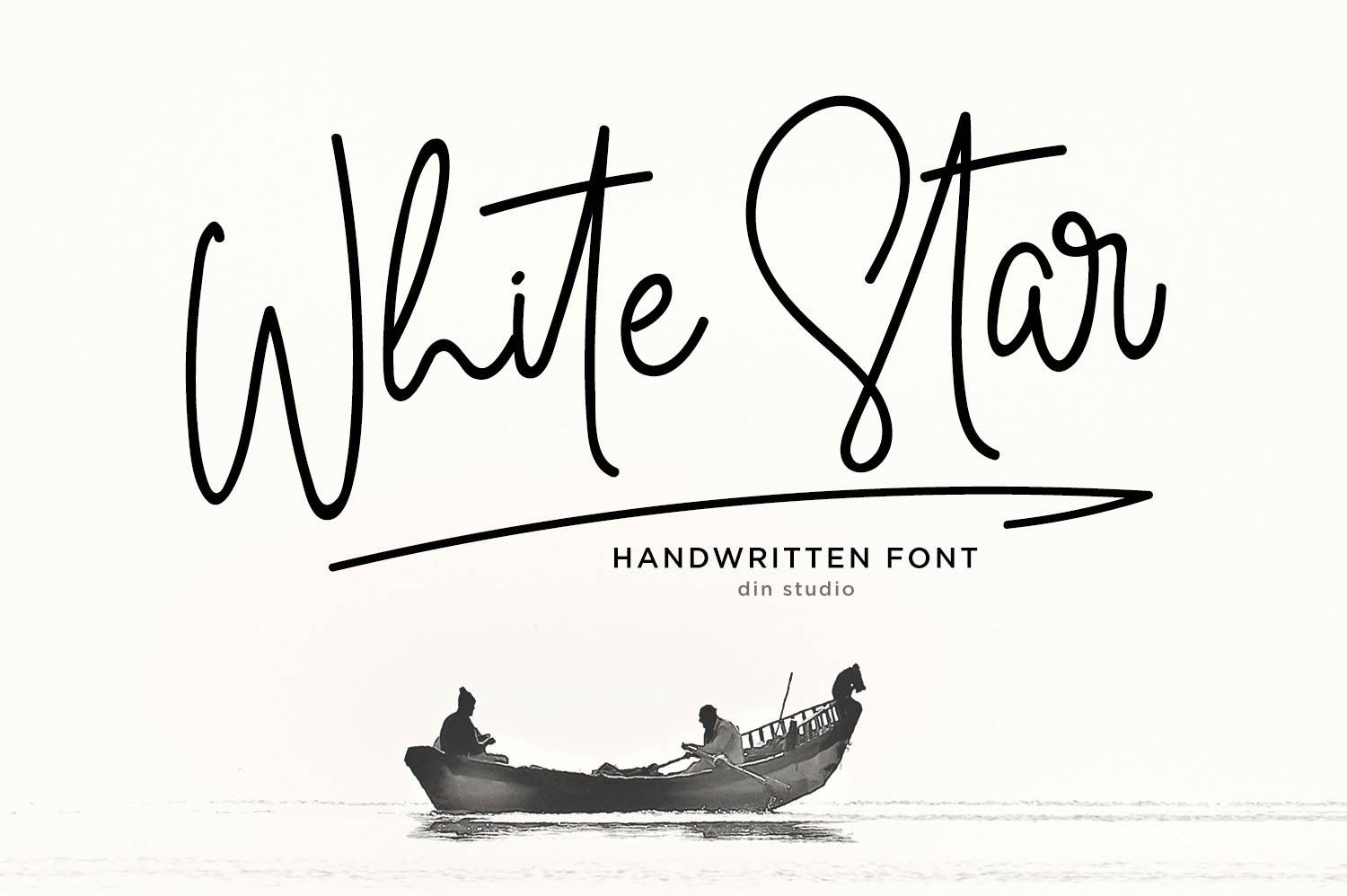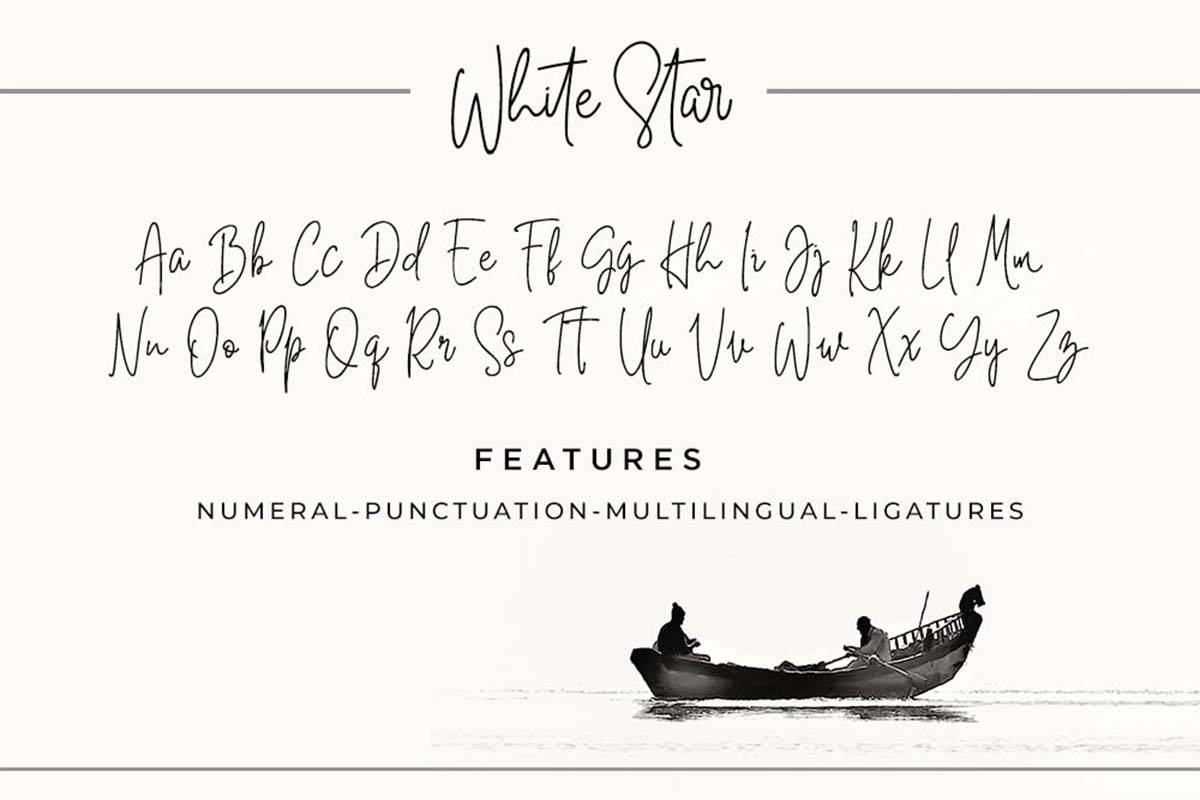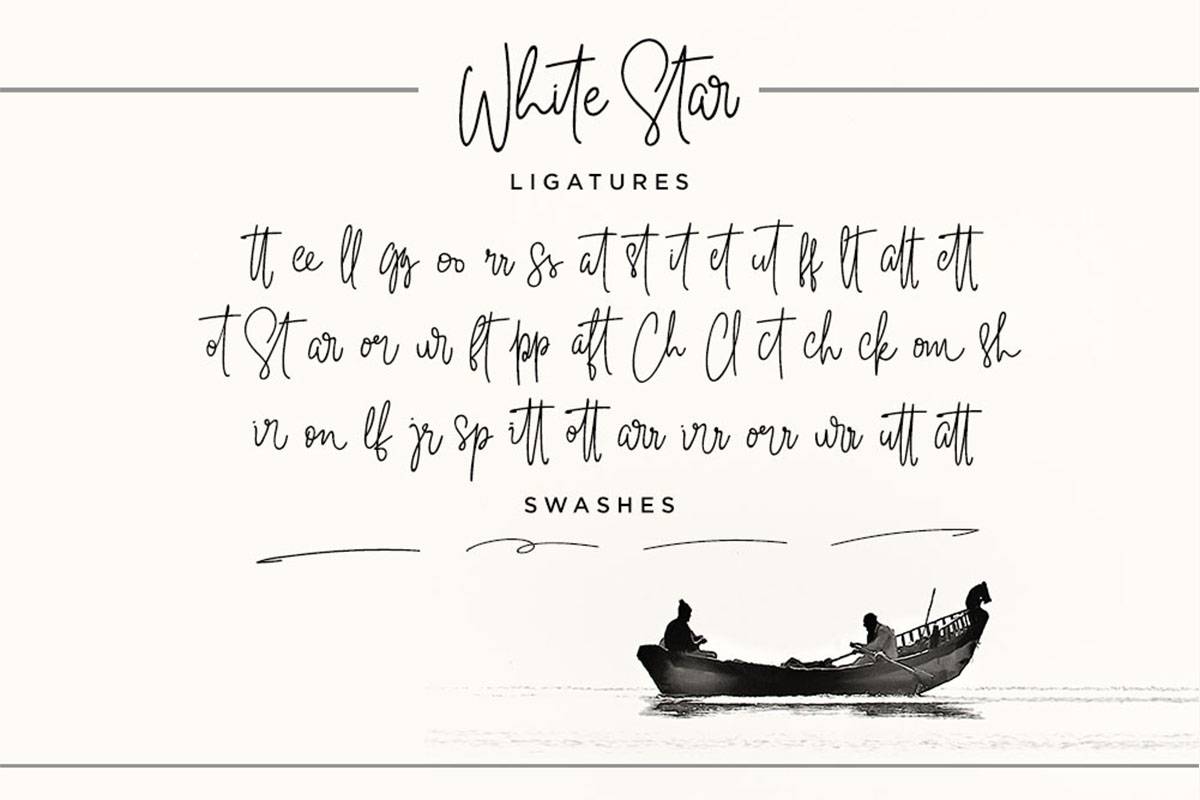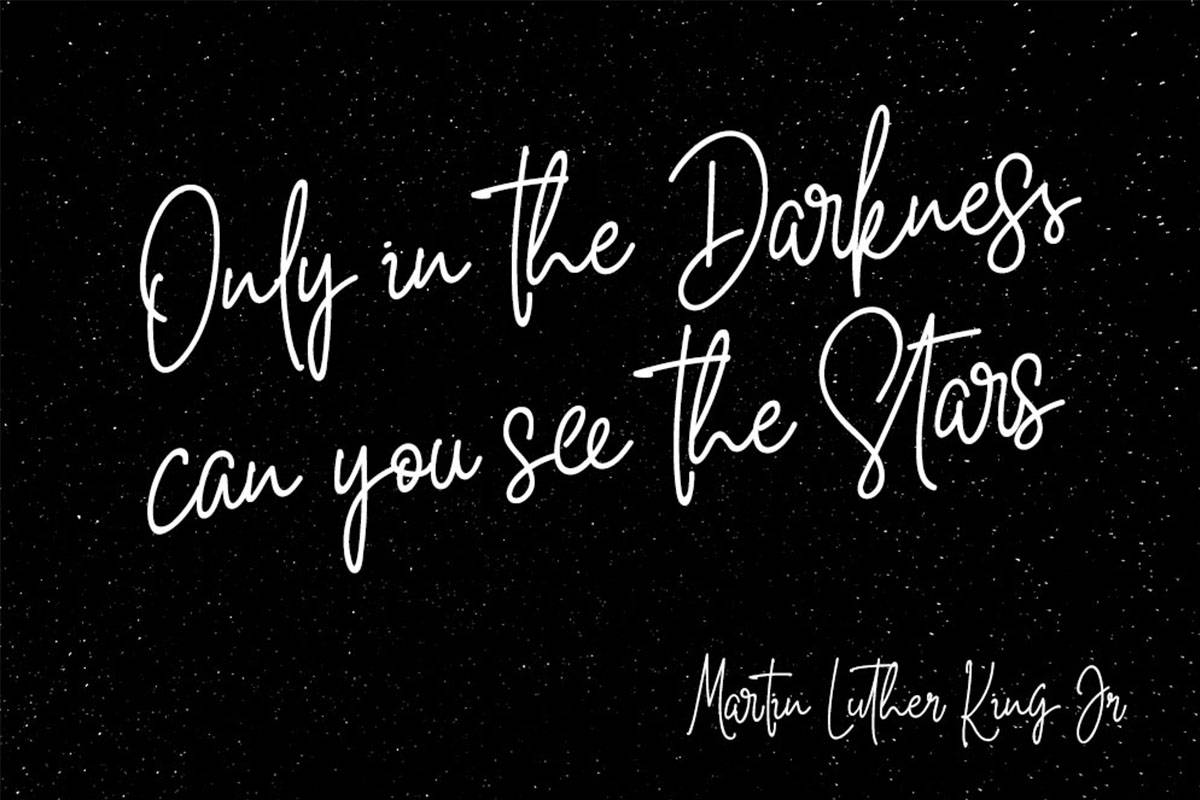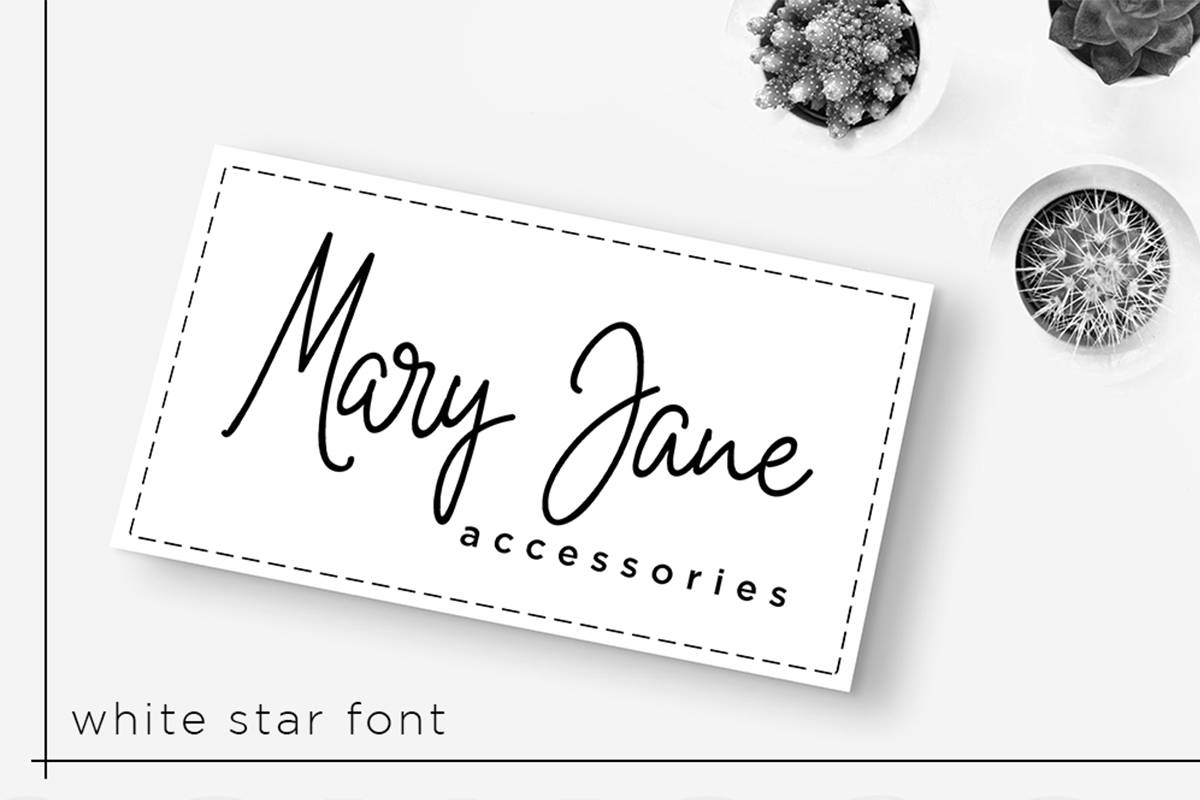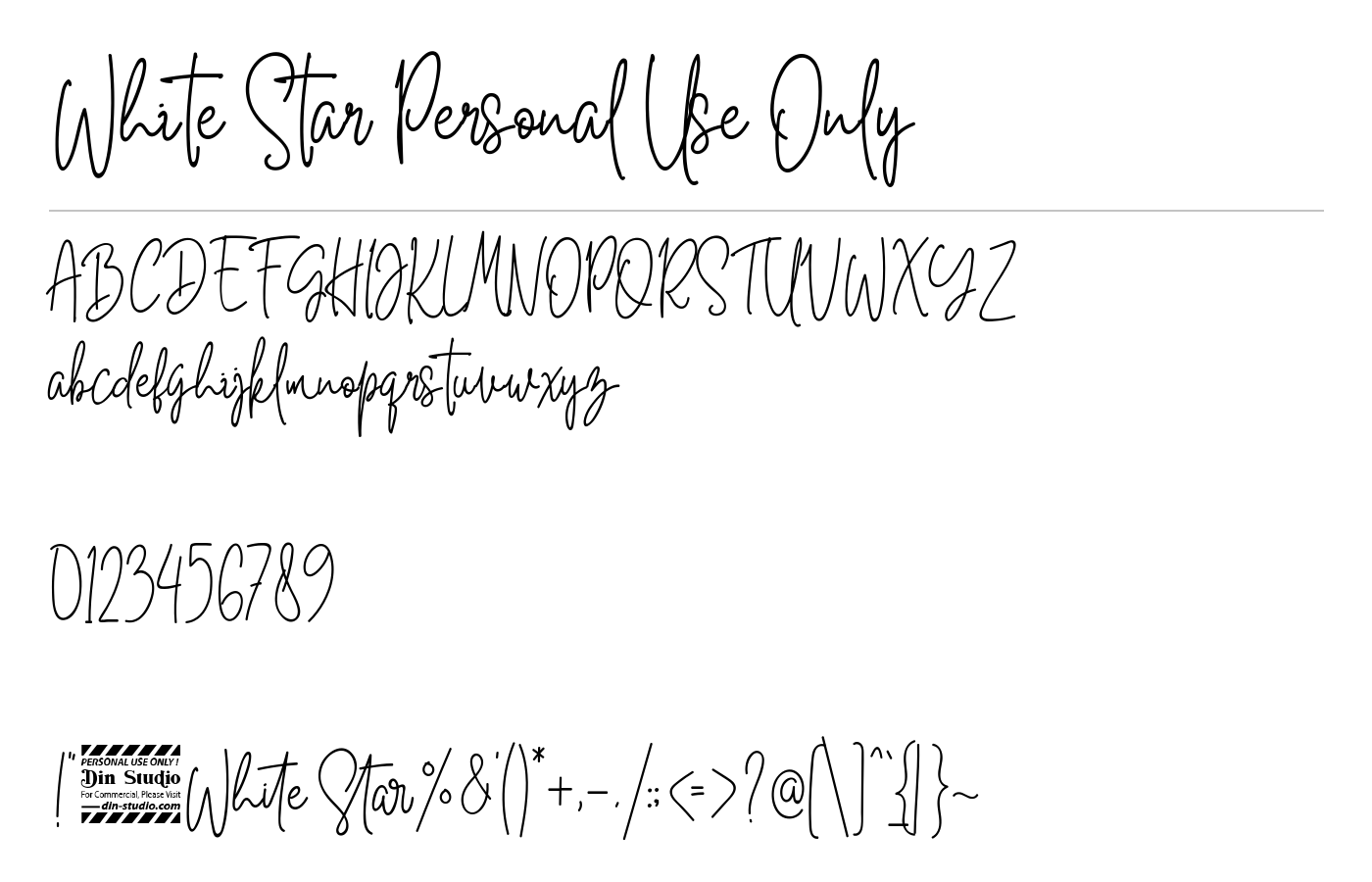
White Star Script is a delicate, hand-drawn script font featuring thin, elongated letterforms with a casual yet elegant feel. Its narrow width and slightly irregular strokes give it a personal, whimsical touch, making it ideal for creative branding, invitations, and informal designs that seek warmth and charm. This font works best in headlines or decorative text where its unique, airy style can shine without sacrificing readability.
White Star Script Font Demo
About White Star Script Font Demo
| Font family | White Star Script Font Demo |